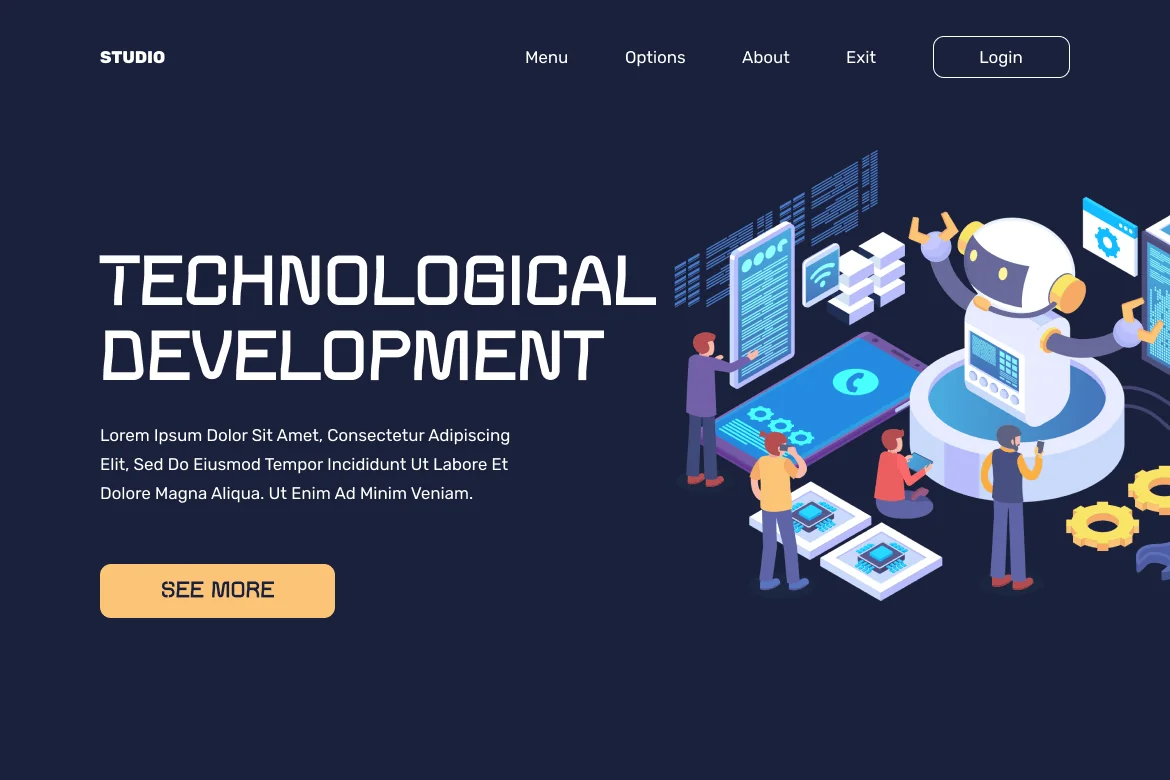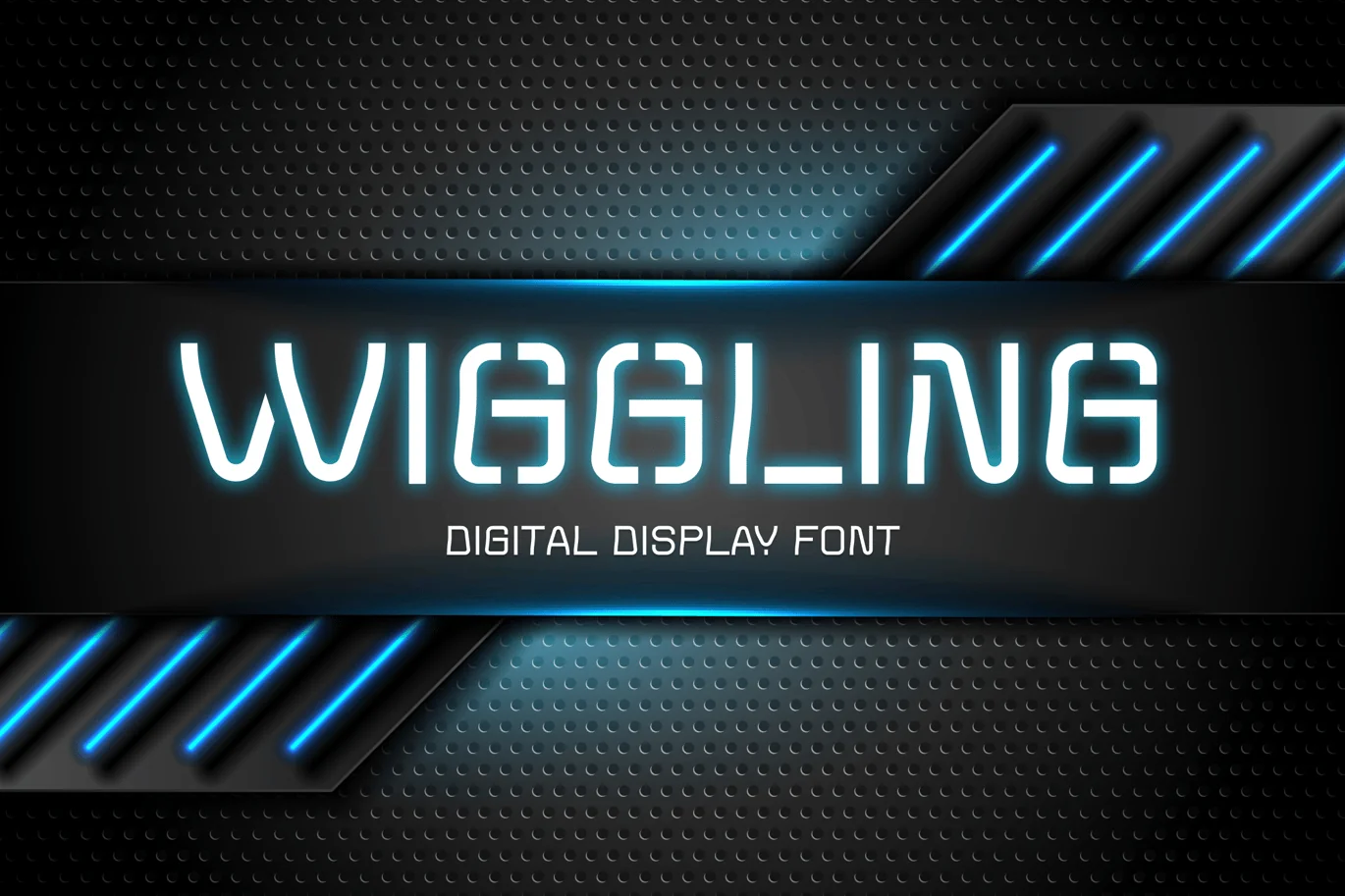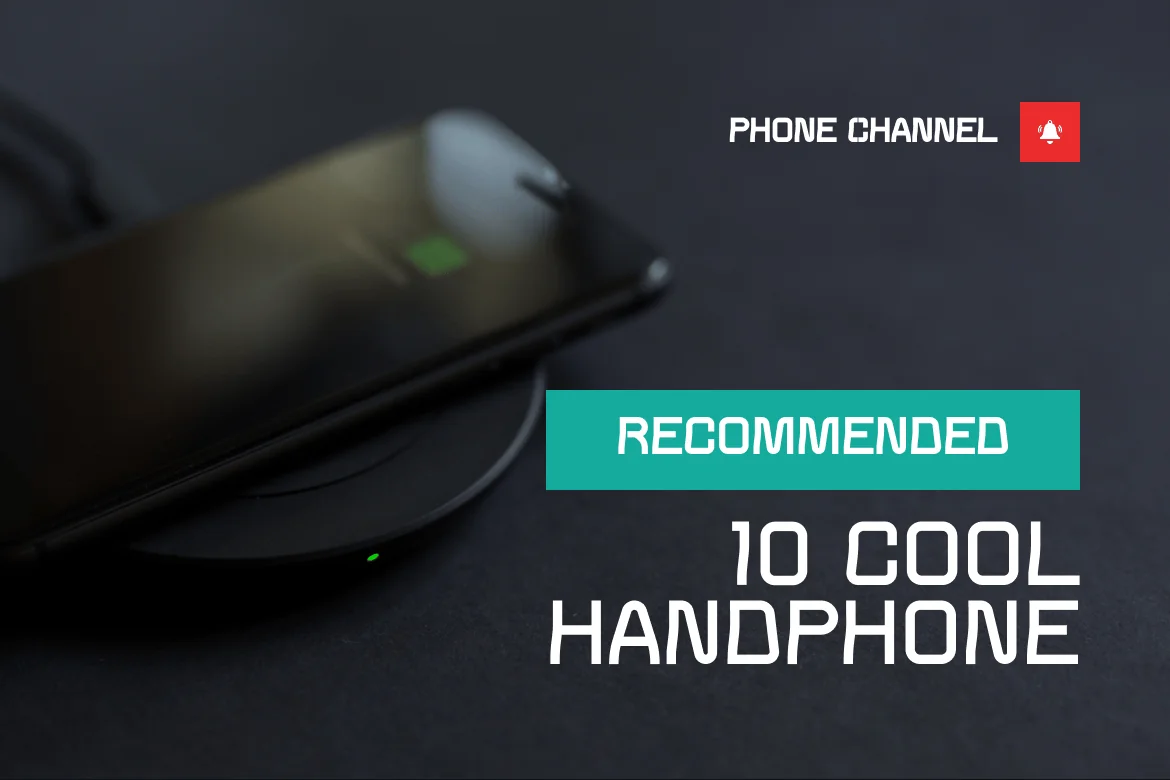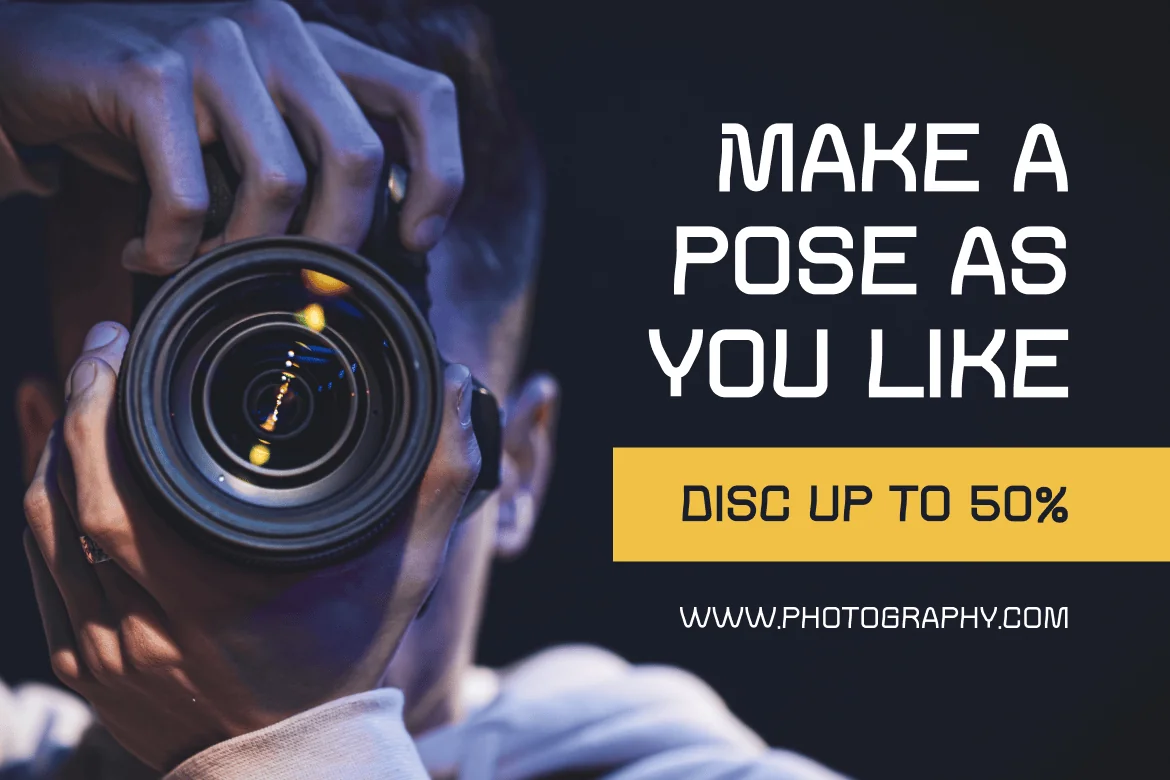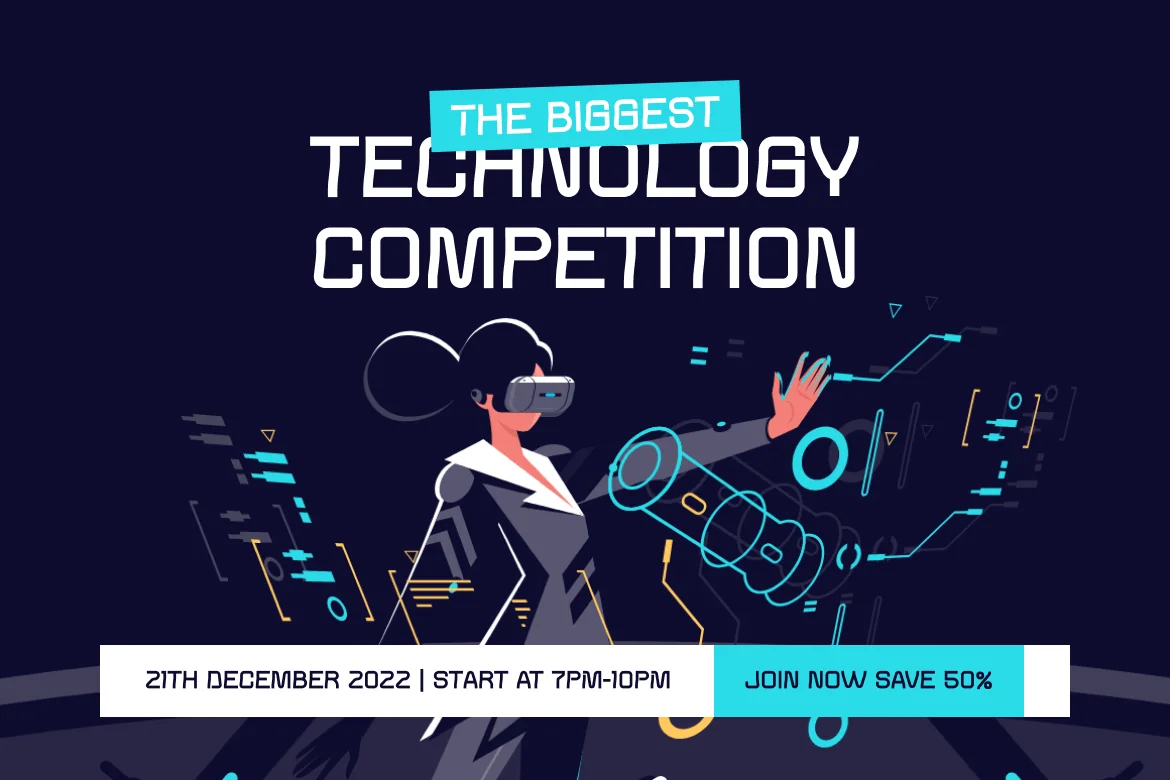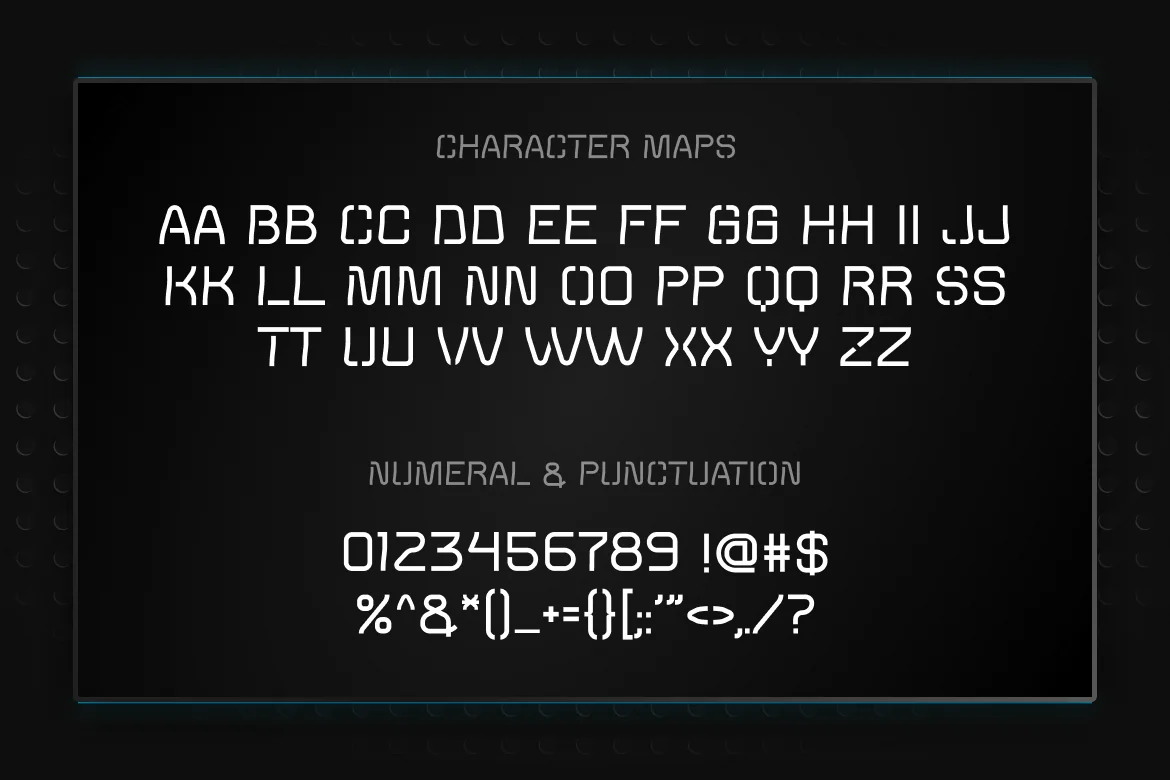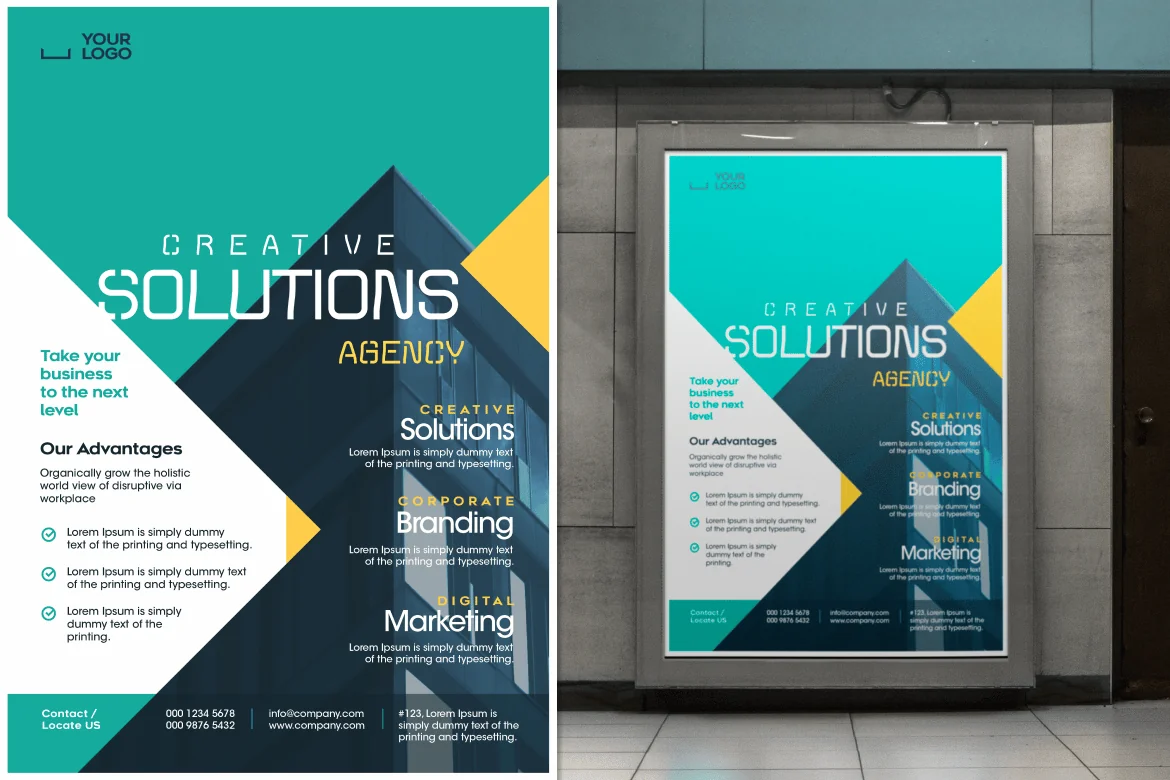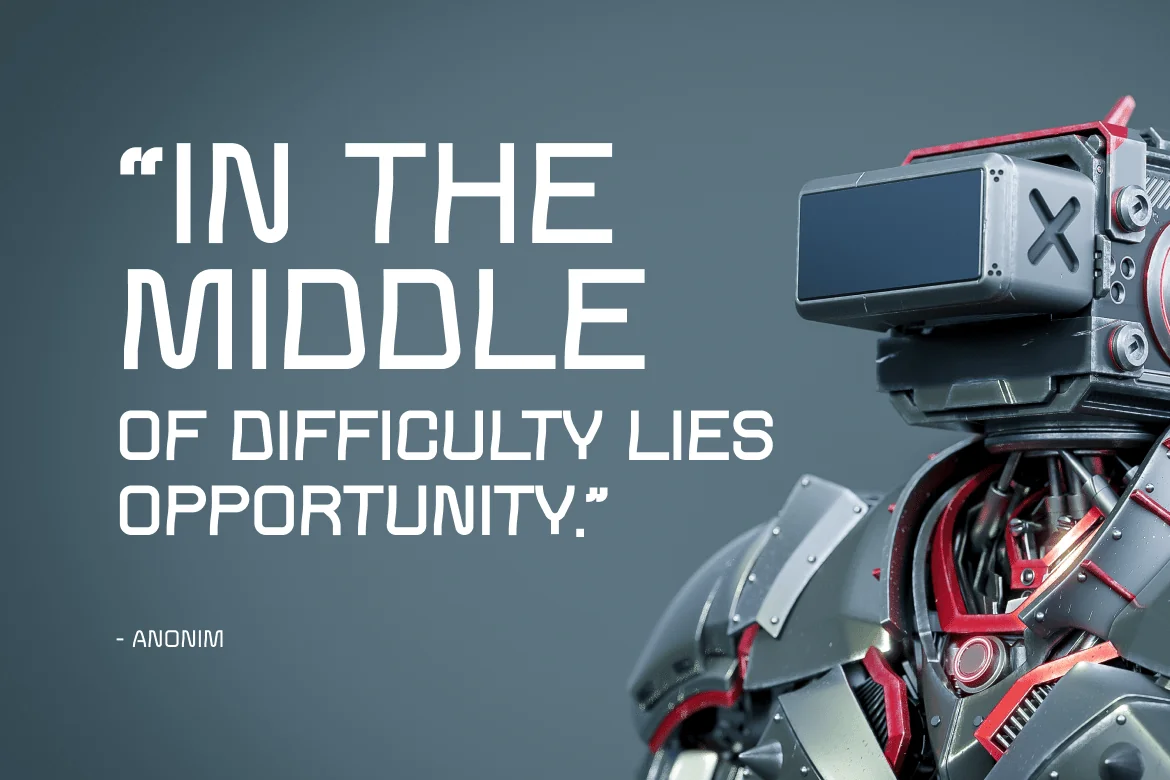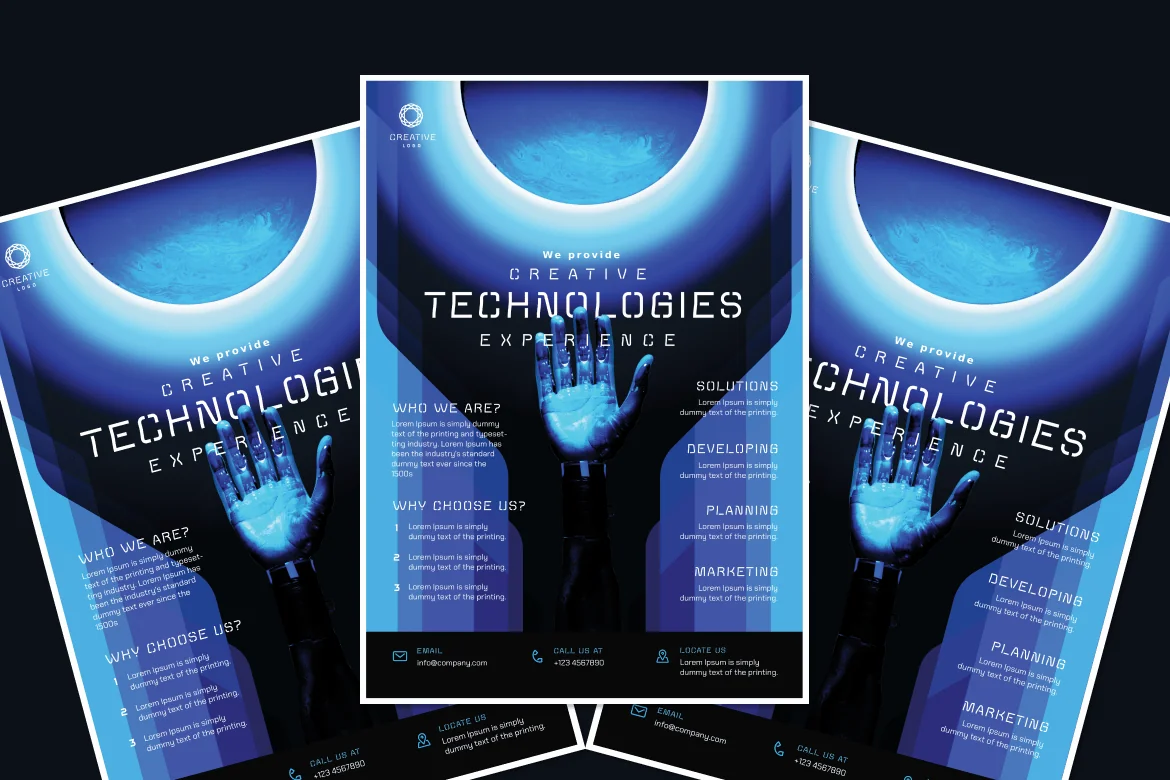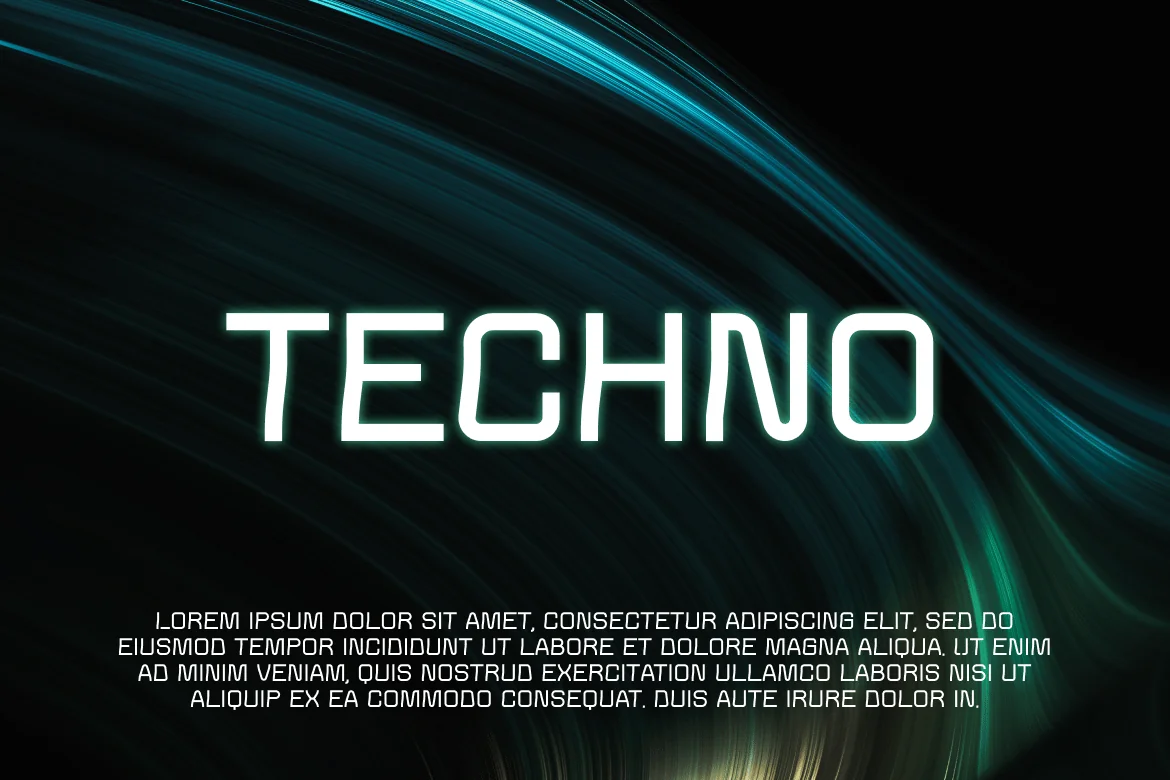
WIGGLING – Digital Display Font
Robot, science, technology is finally find it’s peak today. Get ready for the change.
Suit perfectly for science segmented magazine, poster, movie title, music poster, youtube covers, youtube thumbnails, social media page covers and so on…